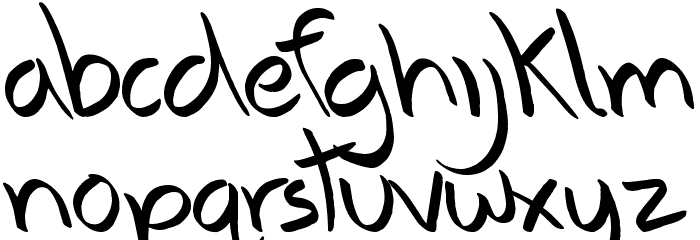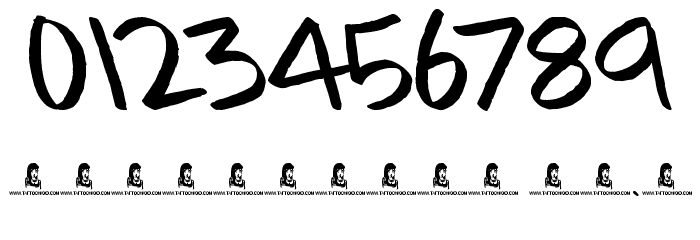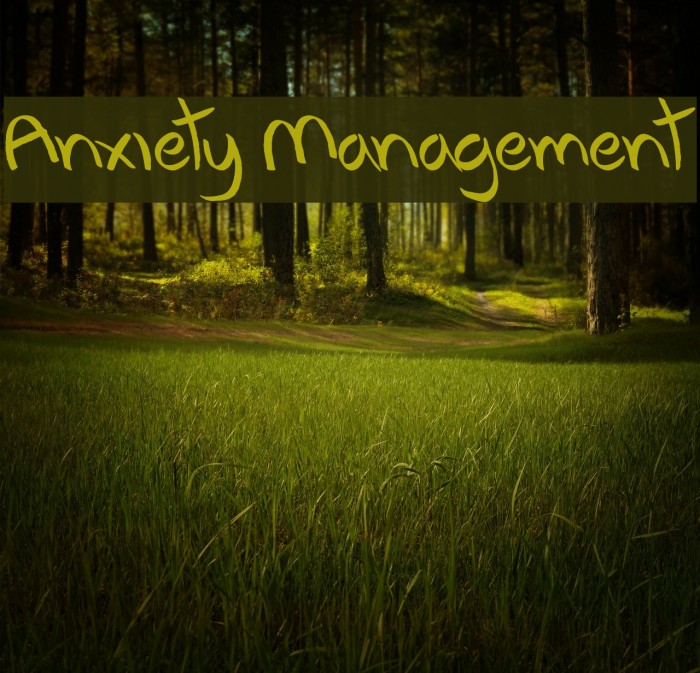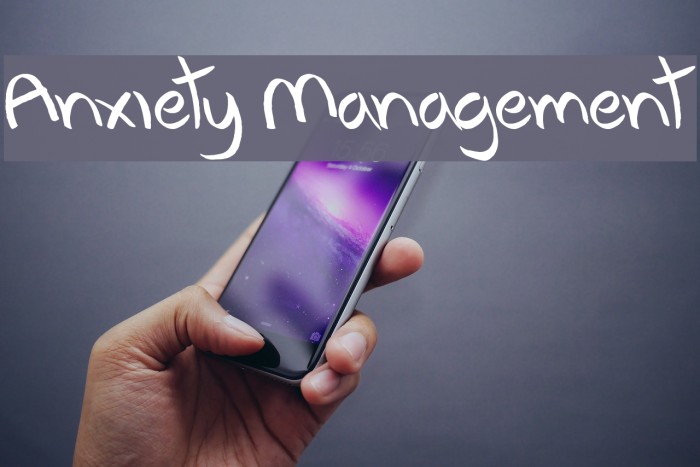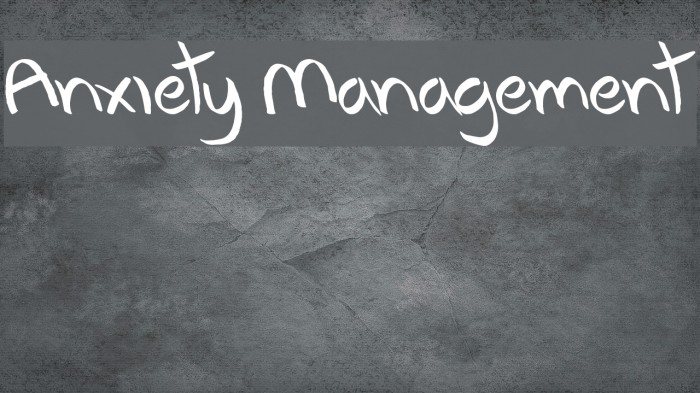
Anxiety Management Font
This font features a lively and energetic handwritten style, characterized by its bold and expressive strokes. The letters have a playful and informal appearance, with a slightly uneven baseline that adds to its casual charm. The uppercase and lowercase letters are well-balanced, maintaining a consistent flow throughout. The numerals and special characters follow the same dynamic style, making them easily recognizable and cohesive with the rest of the font. This font is perfect for projects that require a personal touch or a creative flair.
A bold, energetic handwritten font with playful and expressive strokes.
- Proposed Projects: Ideal for greeting cards, personal branding, creative posters, and social media graphics.
- Overall Style: Casual, Playful
- Use Case: Headlines, Logos, Creative projects